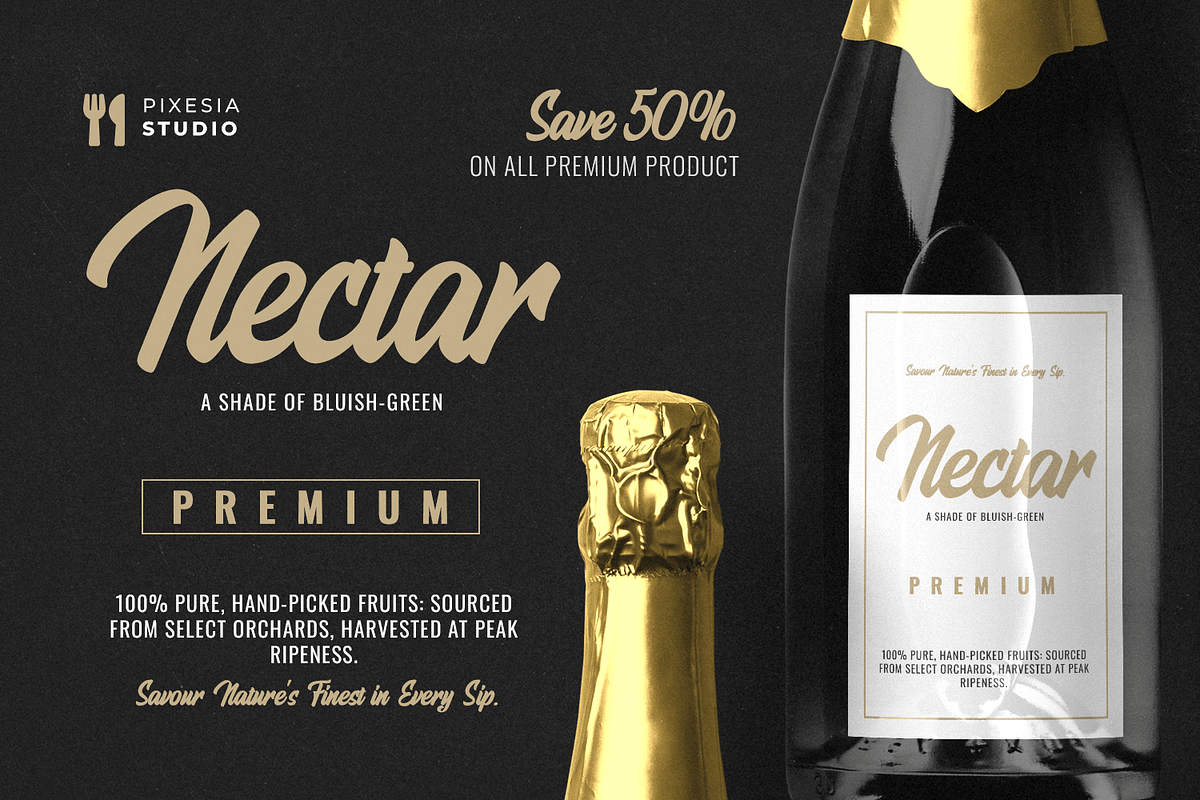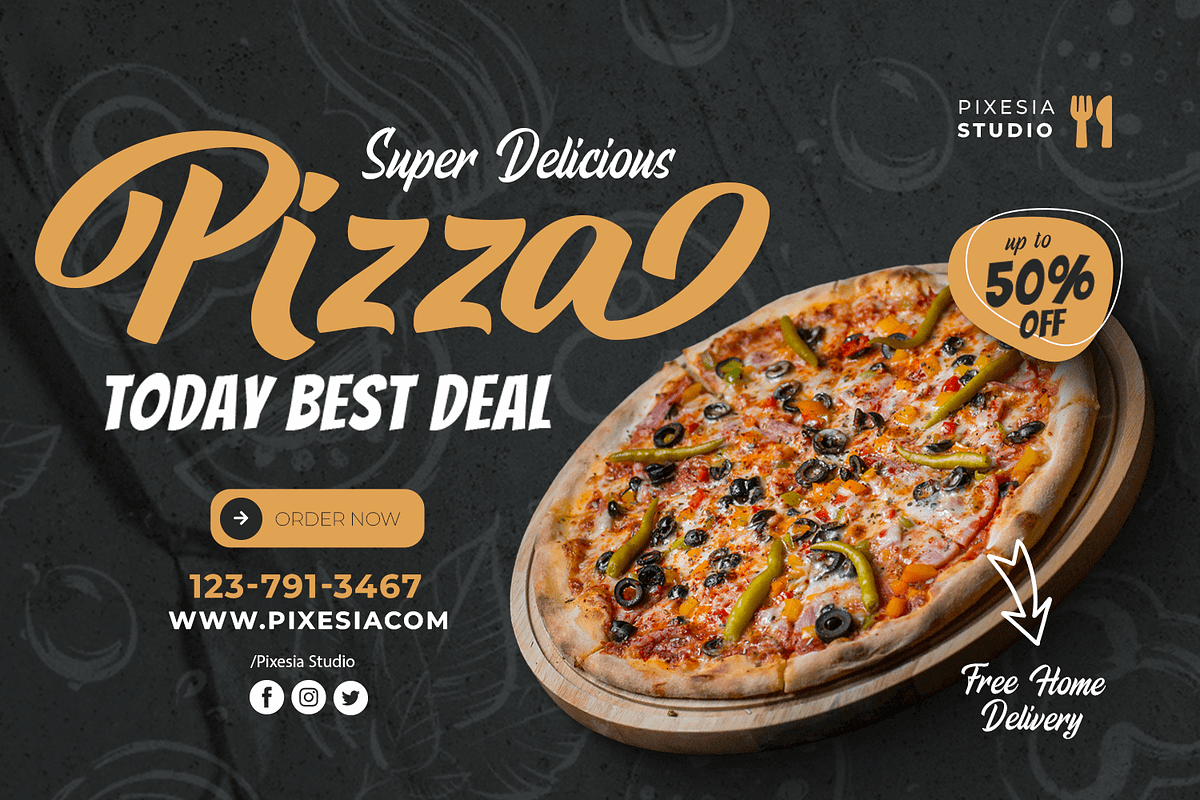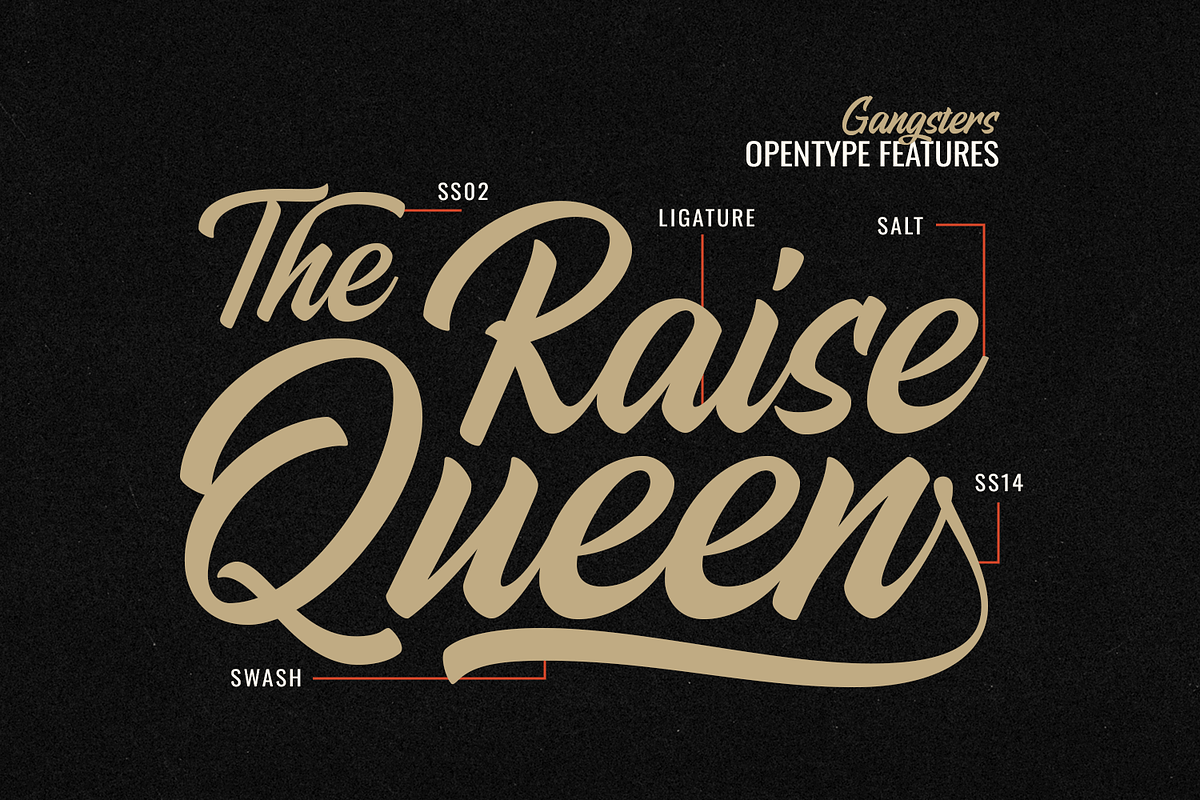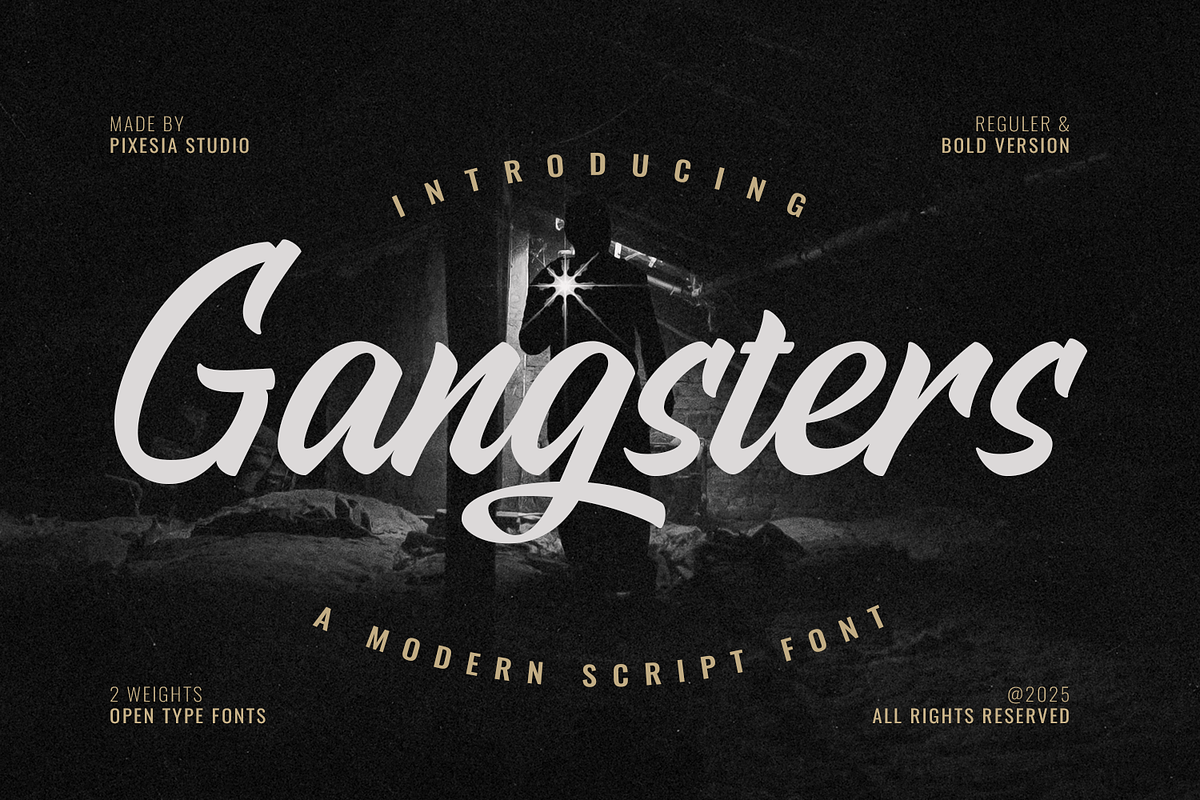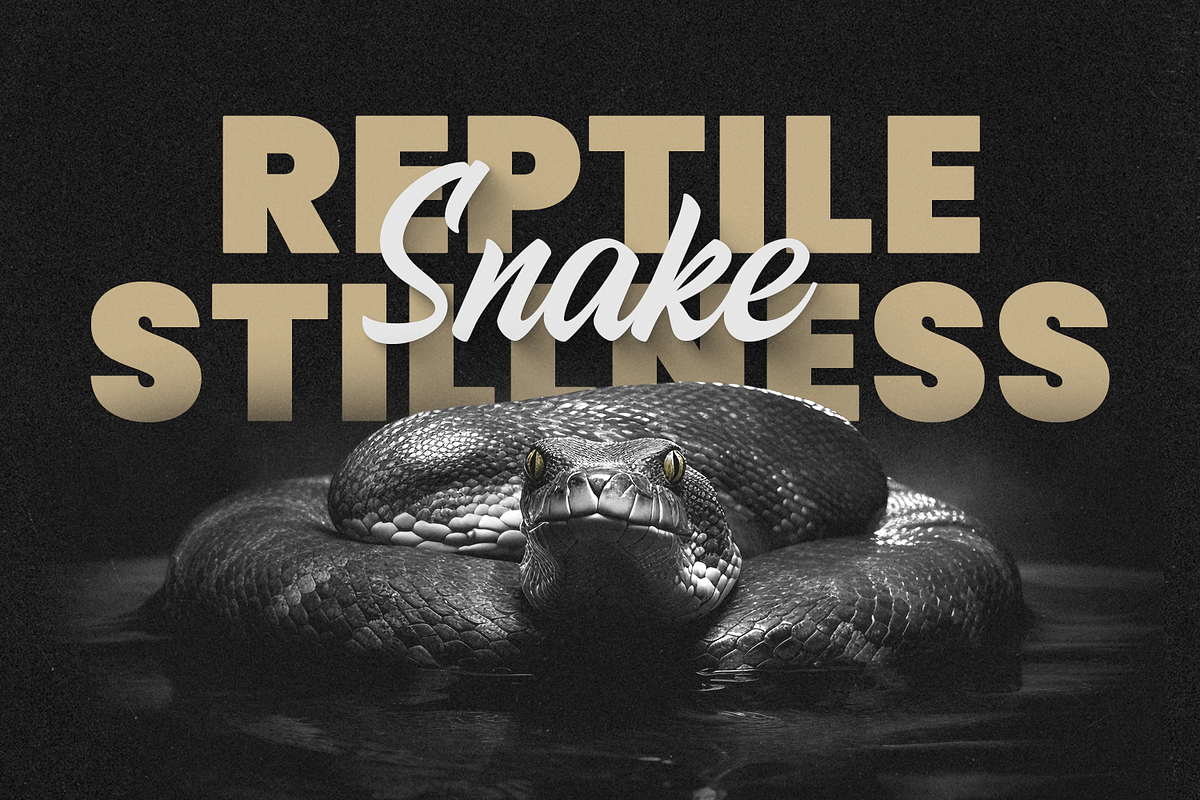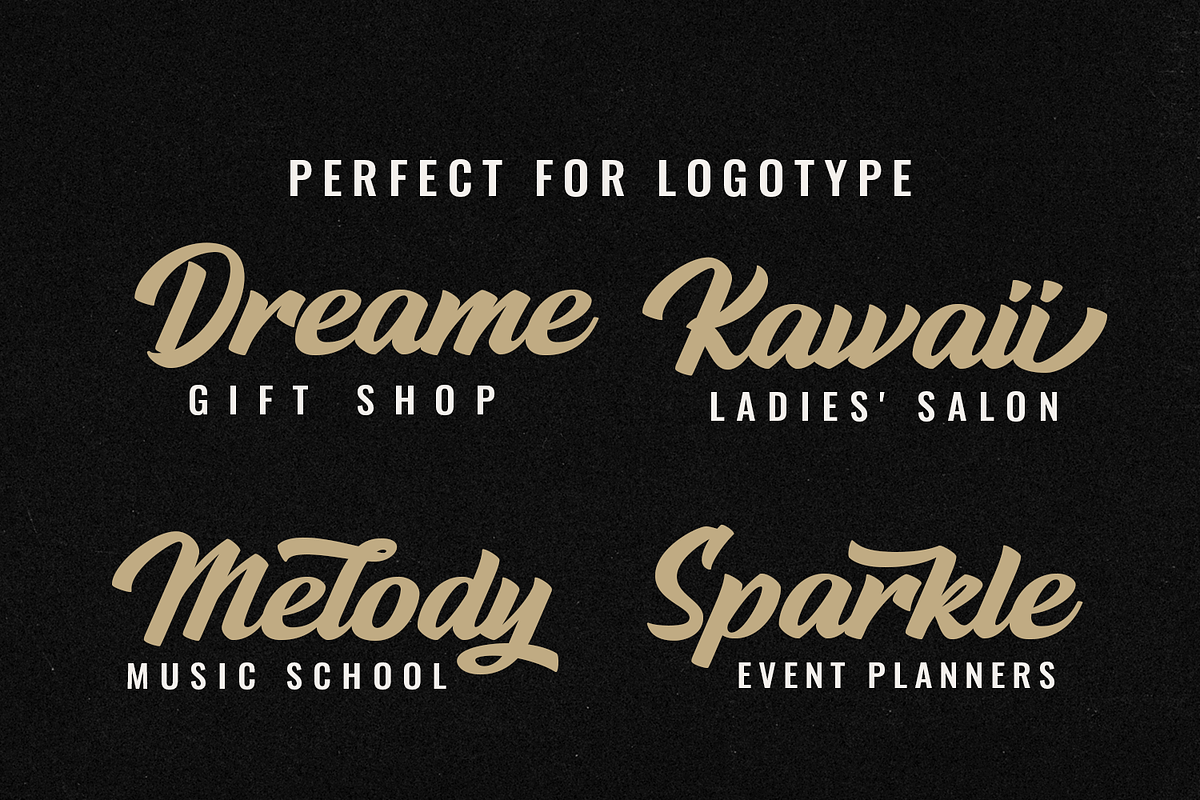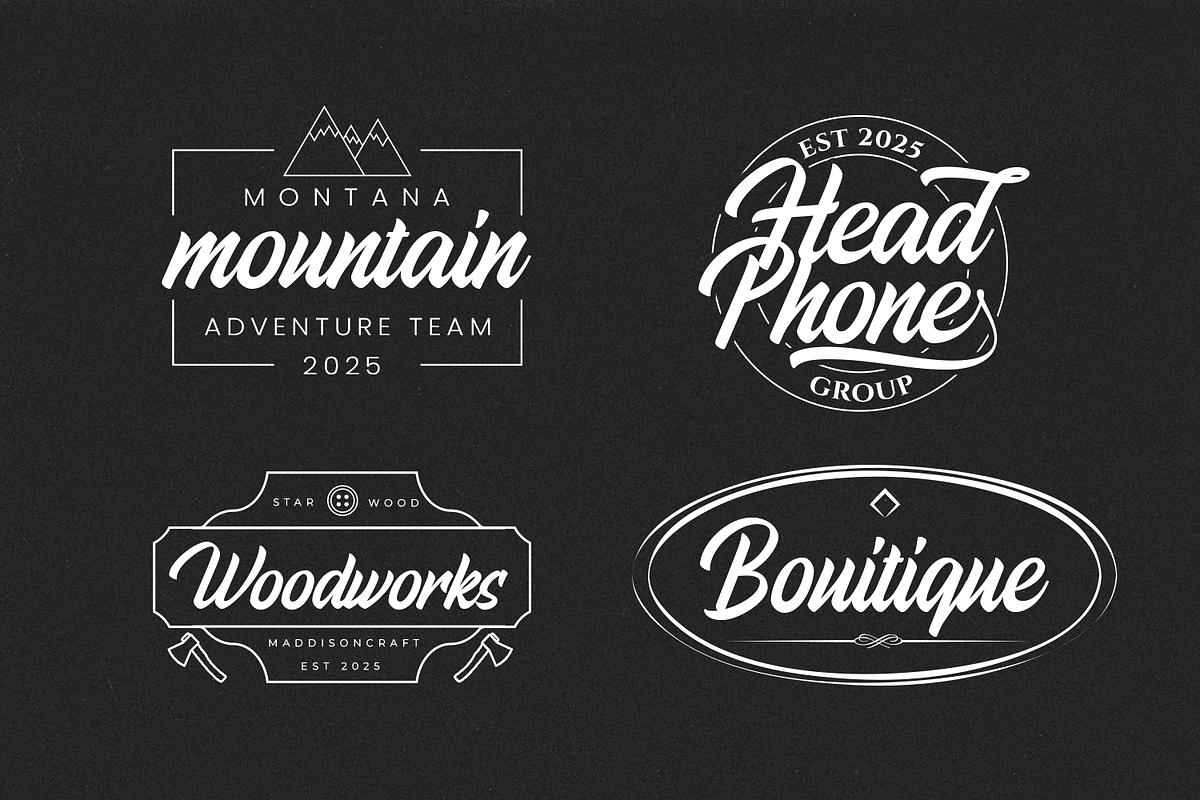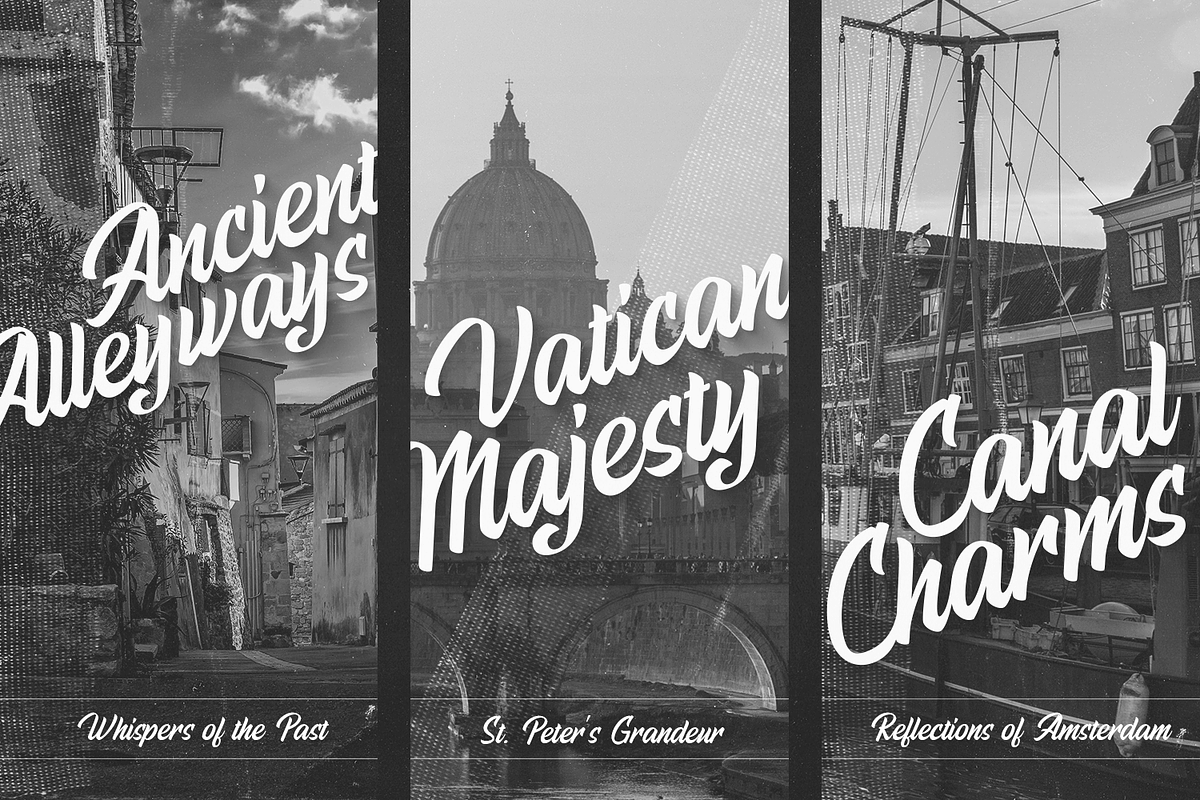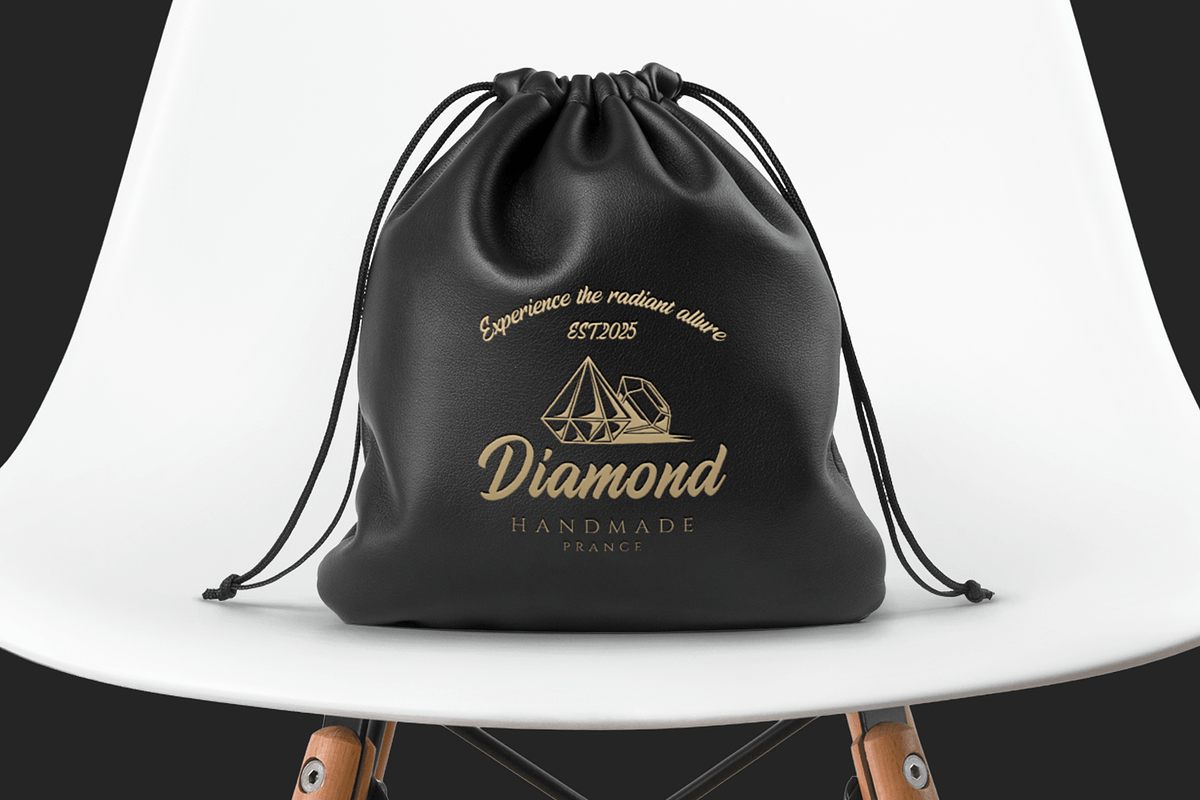
Gangsters – Bold Script Font
Introducing Gangsters – Bold Script Font
Gangsters is a bold script font that blends elegance with bold personality. With its smooth curves and confident strokes, it brings a stylish yet edgy touch to your designs. Available in Regular and Bold versions, it gives you flexibility to create both subtle and striking visuals.
Perfect for branding, logos, posters, apparel, invitation, wedding, poster, logo, packaging, and editorial design, Gangsters adds a unique flair that feels modern, expressive, and effortlessly cool.